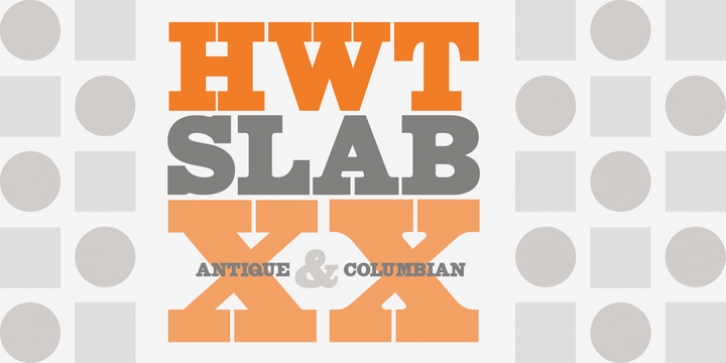
These two extra bold fonts are classic slab serif wood type styles with one detail of difference. Columbian is an extra bold Clarendon wood type that was manufactured by many of the wood type manufacturers in the late 19th century. “Clarendons” feature bracketed or rounded serif joins whereas “Antique” was a class of typefaces that features squared off slab serifs. Some type designs have only minor differences from others. The Columbian design is essentially identical to Wm. Page & Co.'s “Antique no. 4”, with the difference being the bracketed serifs.
In researching material for the digitization of Columbian, we started with a 15 line font identified as “Columbian” shown in the Angelica Press wood type portfolio (printed in 1976). This font is in fact “Page Antique no. 4”. Comparing Antique #4 to Columbian specimens from Hamilton and other manufacturers confirms the only real difference is the serif treatments. Therefore, both fonts are presented as a pair. Each font features a full Western & Central European character set.